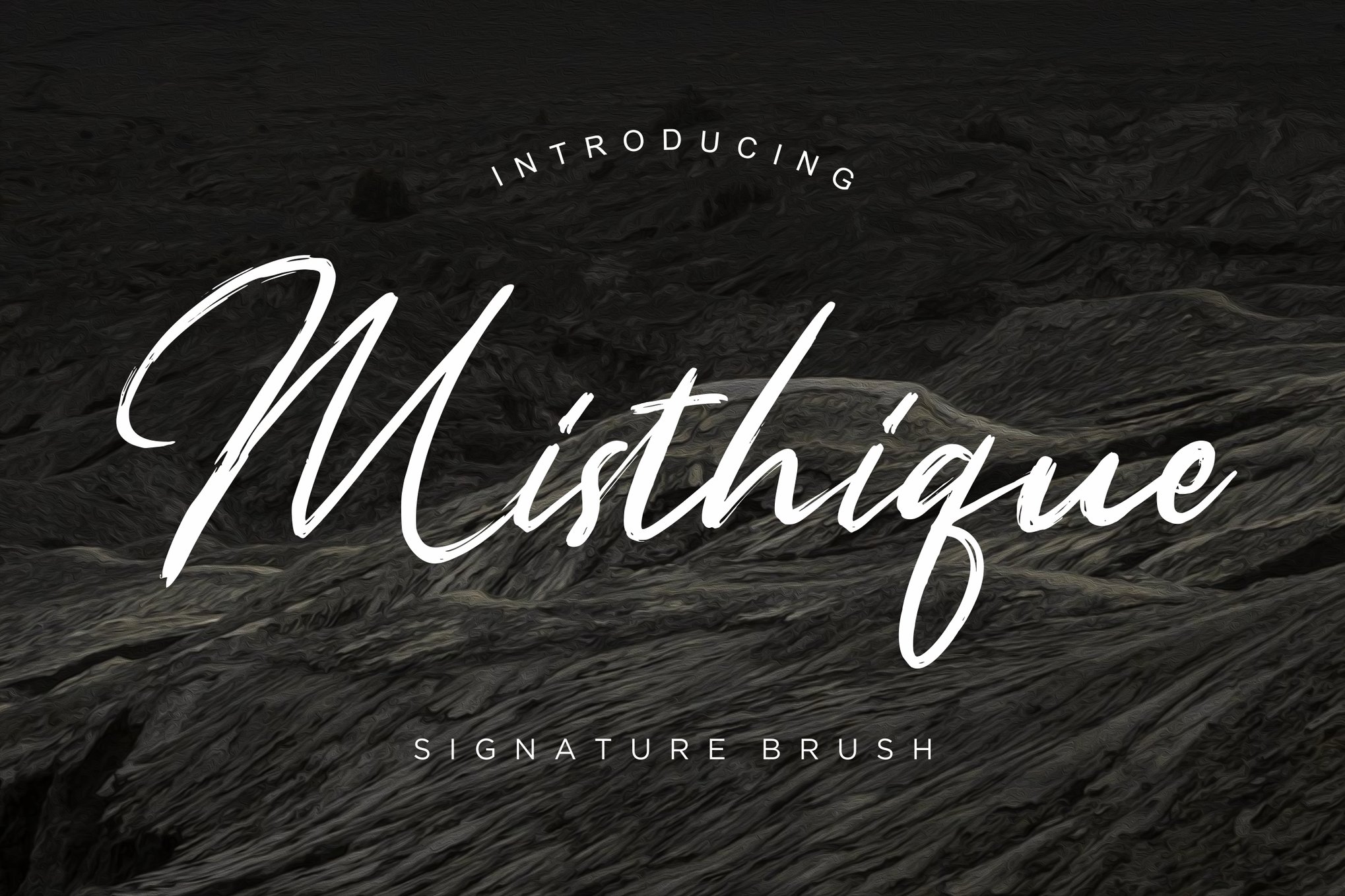
Misthique Signature Brush Business Font
Misthique Signature Brush Business Font is perfect for luxury branding projects, elegant wedding invitations, high-end restaurant menus, boutique store signage, premium product packaging, sophisticated business cards, artisanal craft labels, and upscale marketing materials. This distinctive typeface excels in applications where handcrafted elegance and personal touch are essential for creating memorable brand experiences.
What makes Misthique Signature Brush Business Font truly exciting is its authentic handwritten character that captures the spontaneous flow of traditional brush lettering. The font features natural stroke variations, organic curves, and expressive flourishes that bring warmth and personality to any design. Its carefully designed imperfections and subtle texture create an intimate, human connection that digital fonts often lack. The sophisticated balance between legibility and artistic flair makes it ideal for businesses wanting to convey authenticity, craftsmanship, and premium quality.
The Misthique Signature Brush Business Font family includes standard and alternate character sets, along with decorative swashes and ligatures. The font features extensive OpenType capabilities with contextual alternates that automatically vary letter combinations for a more natural handwritten appearance. Additional ornamental elements and flourishes provide designers with enhanced creative flexibility for custom lettering solutions.
For designers seeking an authentic signature-style typeface, Misthique Signature Brush Business Font Free Download represents an exceptional choice that combines artistic expression with commercial versatility. Whether you're developing brand identities for creative agencies, designing packaging for artisanal products, or creating marketing materials for lifestyle brands, this font delivers the handcrafted sophistication that resonates with discerning audiences. Its organic brush strokes and elegant flow make it particularly effective for businesses in fashion, beauty, hospitality, and luxury goods sectors. The font's ability to convey both professionalism and personal touch makes it an invaluable tool for creating distinctive brand communications that stand out in today's competitive marketplace.